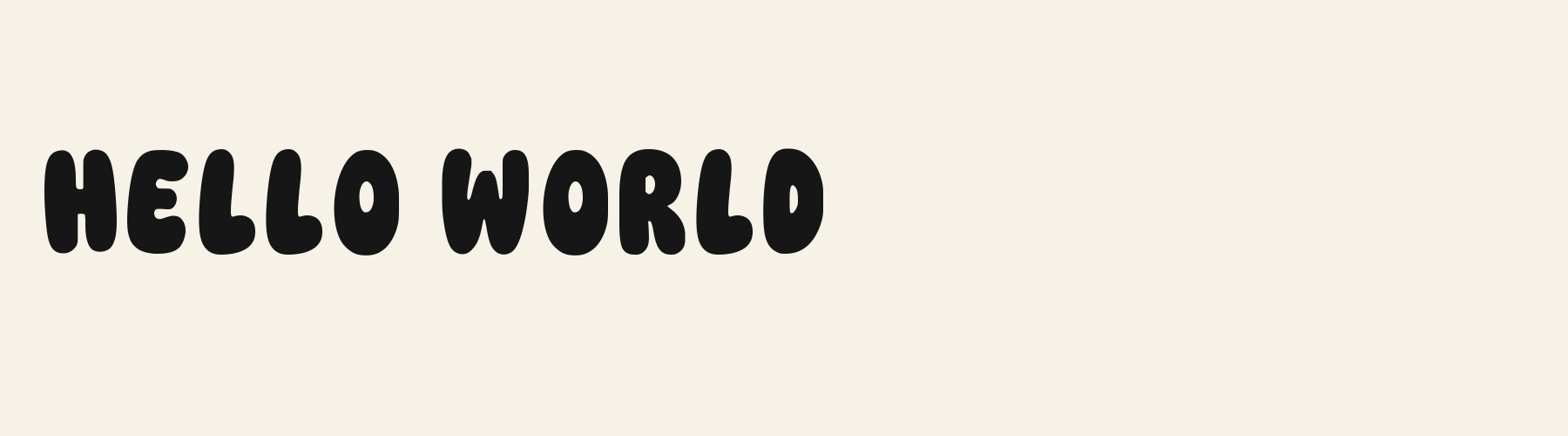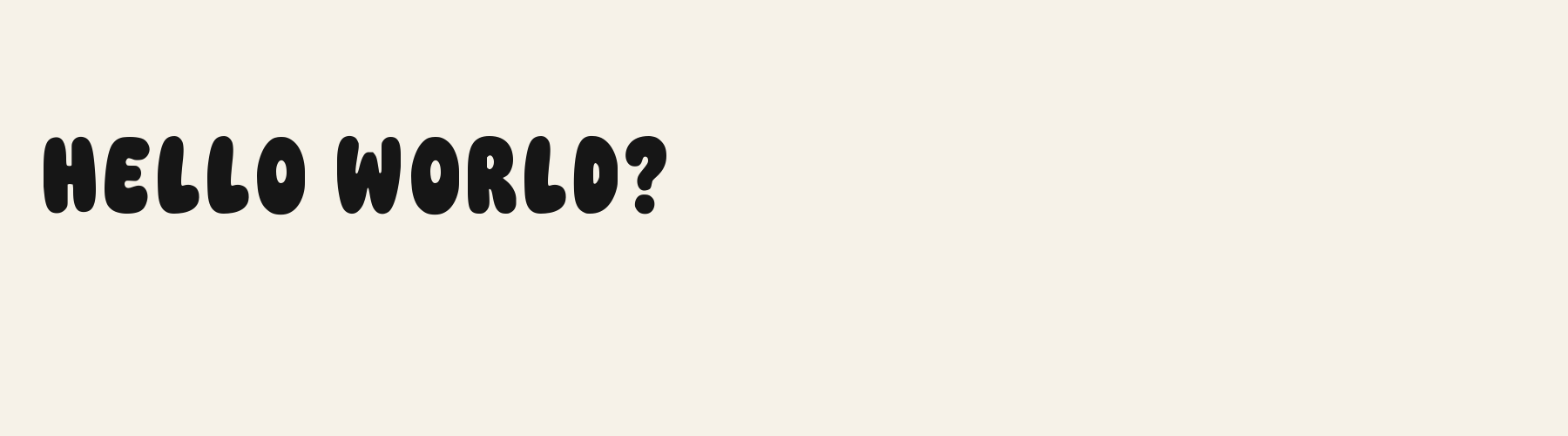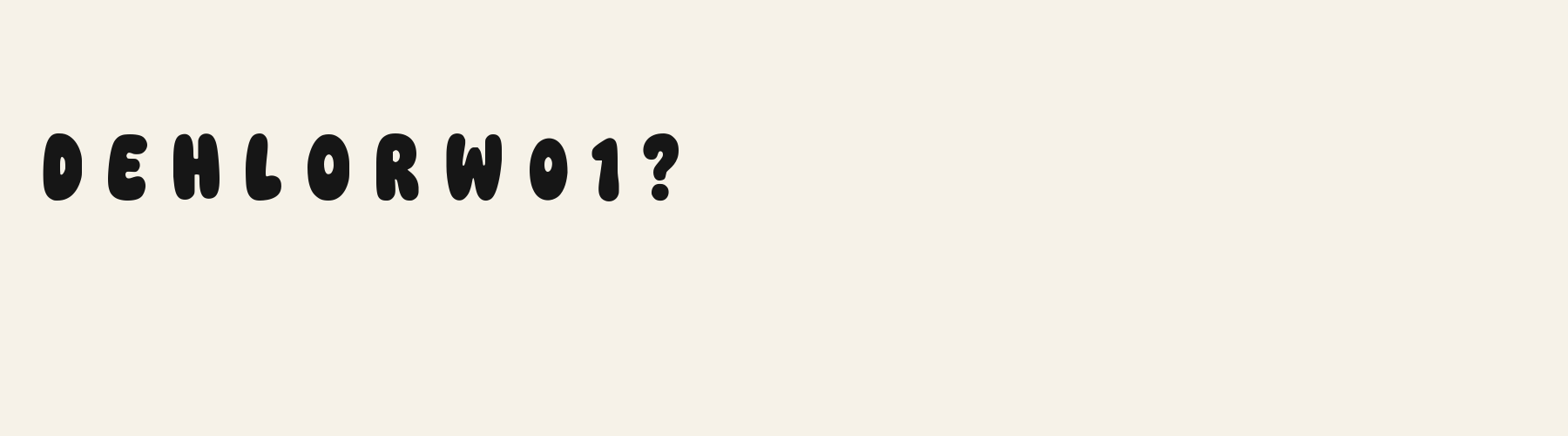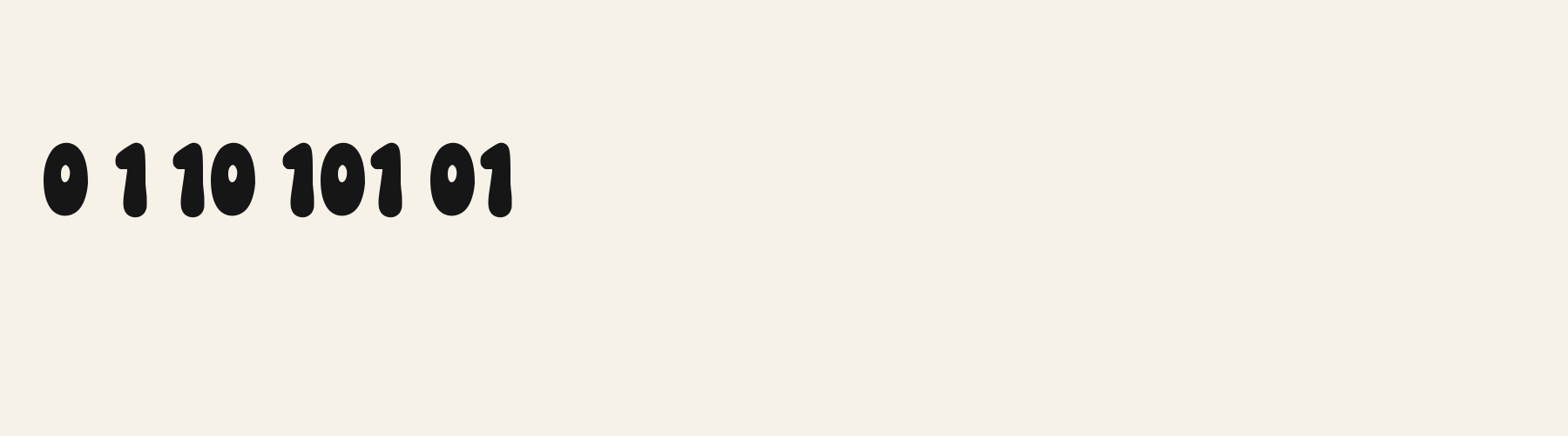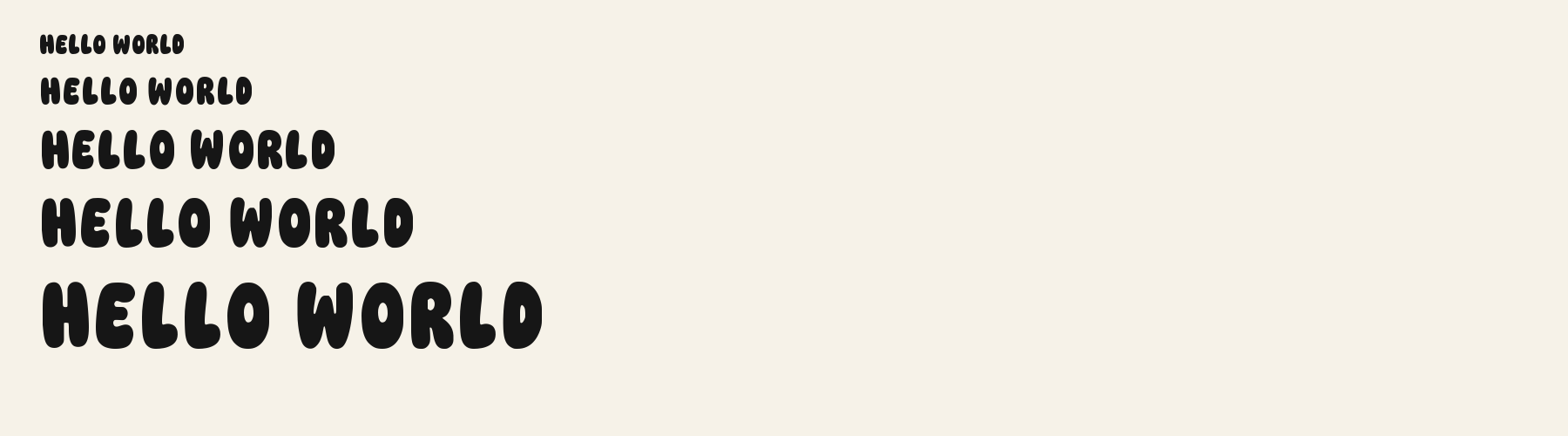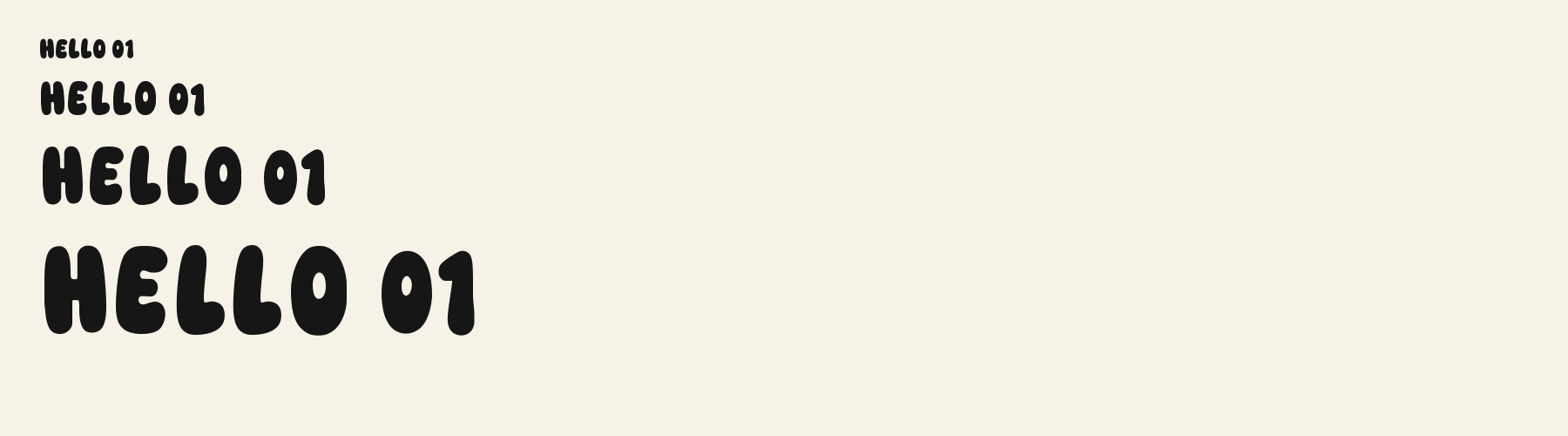
Dreamslug Grotesk Pinhole Bounce Bubble Font
Dreamslug Grotesk packs thick, softly uneven strokes around small openings, making the letters feel inflated and slightly wobbly.
Pinhole Bounce Bubble Letterforms
Dreamslug Grotesk packs thick, softly uneven strokes around small openings, making the letters feel inflated and slightly wobbly. The O has a tall oval outline with a tiny upright counter, while the E curls its short arms around narrow, rounded openings. The R combines a small high counter with a heavy leg that bends outward into a soft foot. Rounded terminals and deep joins keep the silhouettes fluid, with little straight geometry interrupting the surface. Across the uppercase sample, the narrow bodies and gently shifting contours give short phrases a friendly, cushioned bounce.
Inspect O, D and R for closing counters, and E and W for crowded openings in your actual wording. Check word spaces alongside repeated rounded letters. These specimens show Latin capitals; preview lowercase, accents and any other scripts separately before relying on their appearance.
Use this face for a short heading or product name. Try a restrained sans serif for supporting text, with larger counters and more regular contours to contrast its tiny openings and swollen strokes. Verify the combination in your actual layout.
Compare smaller and larger previews, watching the tiny counters in O, R and D and the narrow openings in E. The larger setting exposes their shapes more clearly; check whether those details remain distinct at your intended output size.
In this uppercase phrase, Dreamslug Grotesk has smooth, inflated outlines and tall oval bowls with small counters. Its L feet curl softly upward, giving the words a compact, cushioned rhythm.
Sticker. Thick silhouettes and softly curled terminals give a short greeting the plump, playful presence suited to a sticker. LITTLE ODD WORLD
Book or album cover. Tall oval bowls and uneven rounded contours suit a playful cover title with room for the lettering to dominate. JELLY POP
Product label. Inflated strokes and tiny counters give a short product name a soft, candy-like character on a playful label.
The x-height is a compact 67.5% of the cap height, below the 74.4% median for display fonts, lower than 107 of the 116 other display fonts. Ascenders on b, d, h, k and l line up with the capitals (99.2% of their height), and descenders on g, j, p, q and y drop 28% of the cap height below the baseline, deeper than 94 of the 116 other display fonts. It sets narrow: an average lowercase letter, spacing included, is 62.7% as wide as the capitals are tall (an average capital, 74.1%), 28% less than the median for display fonts, so more words fit on a line. The o is an upright oval, 0.77 times as wide as it is tall, and M is the widest capital, at 1.30 times the width of H. The O stops 0.4% of the cap height short of H and dips 1.8% below the baseline.
The letters stand upright, leaning less than 2.5° either way. Vertical stems measure 28.3% of the cap height, heavier than 43 of the 58 other display fonts. Ink covers 49.3% of each lowercase letter's box (its advance width by the cap height), darker than 92 of the 116 other display fonts. The contrast is reversed: the tops and bottoms of o and O are 1.3 times as thick as their sides.
Its 345 characters include 245 Latin letters, plus 100 figures, punctuation marks and symbols; 193 of the Latin letters are accented or special forms beyond A to Z. The word space measures 28.5% of the cap height, and the blank space either side of a lowercase letter takes up 15% of its width. Spacing is adjusted with 10,920 kerning pairs, the most of all 117 display fonts. The tightest of them is Ty, which closes up by 22.3% of the cap height. The figures have different widths, so columns of numbers set in Dreamslug Grotesk will not line up exactly.